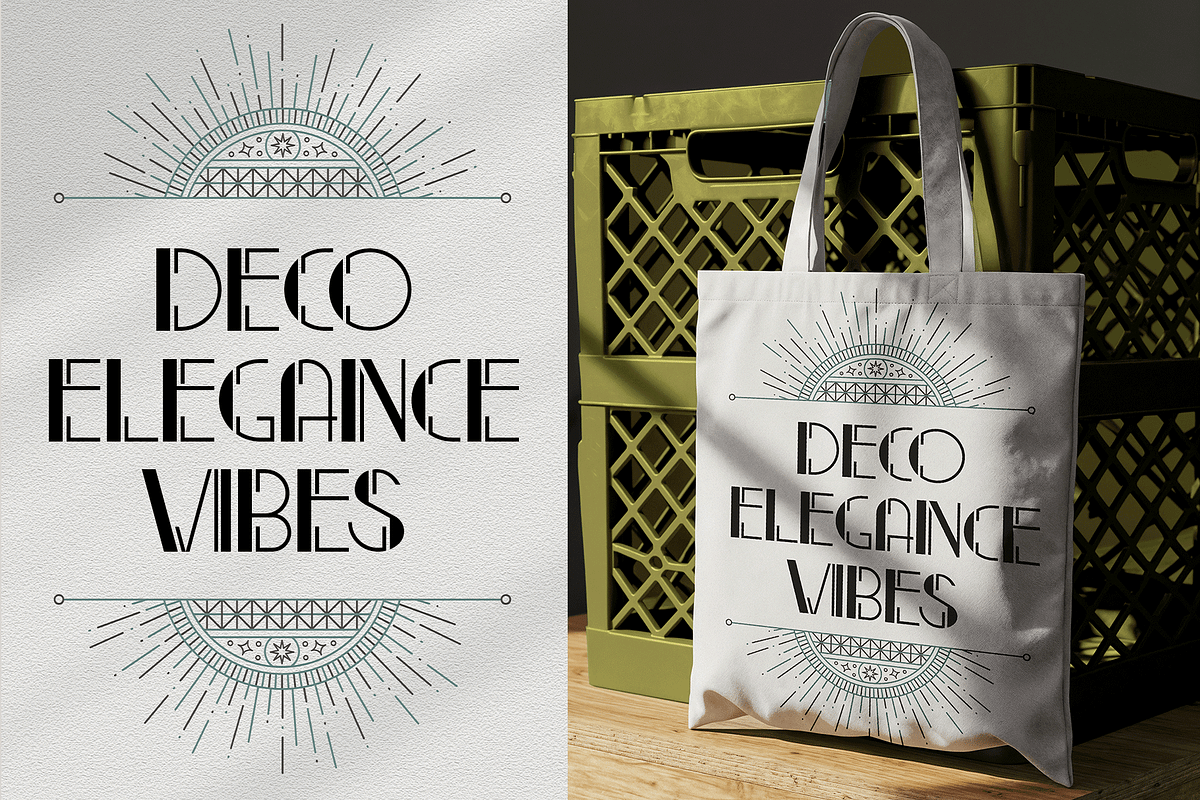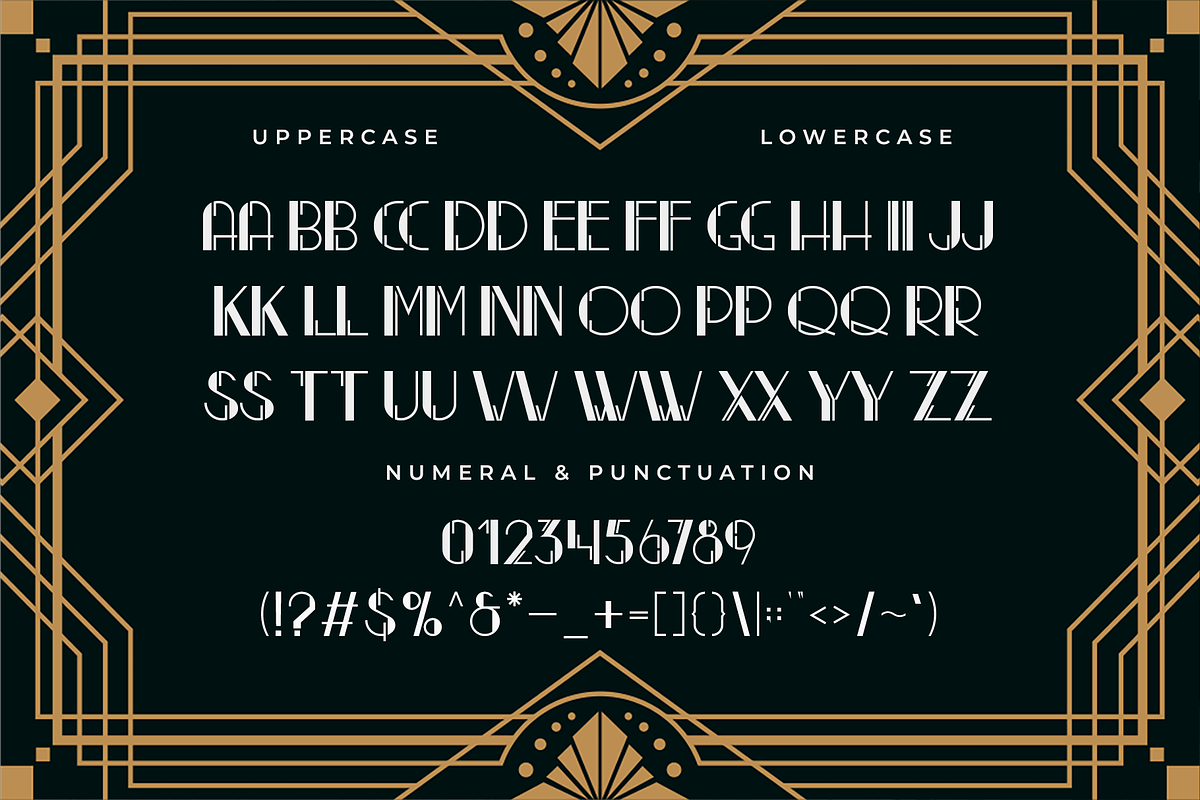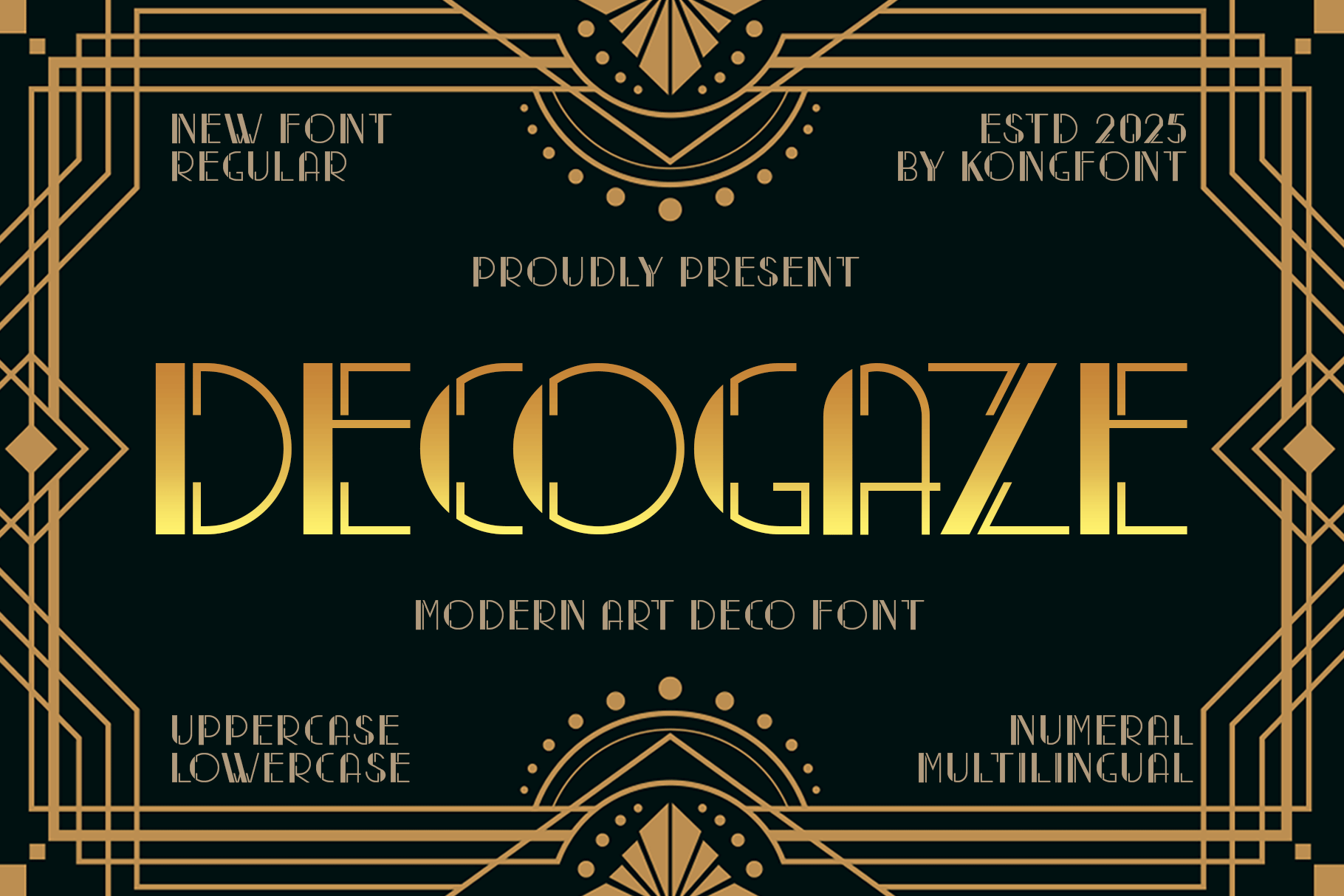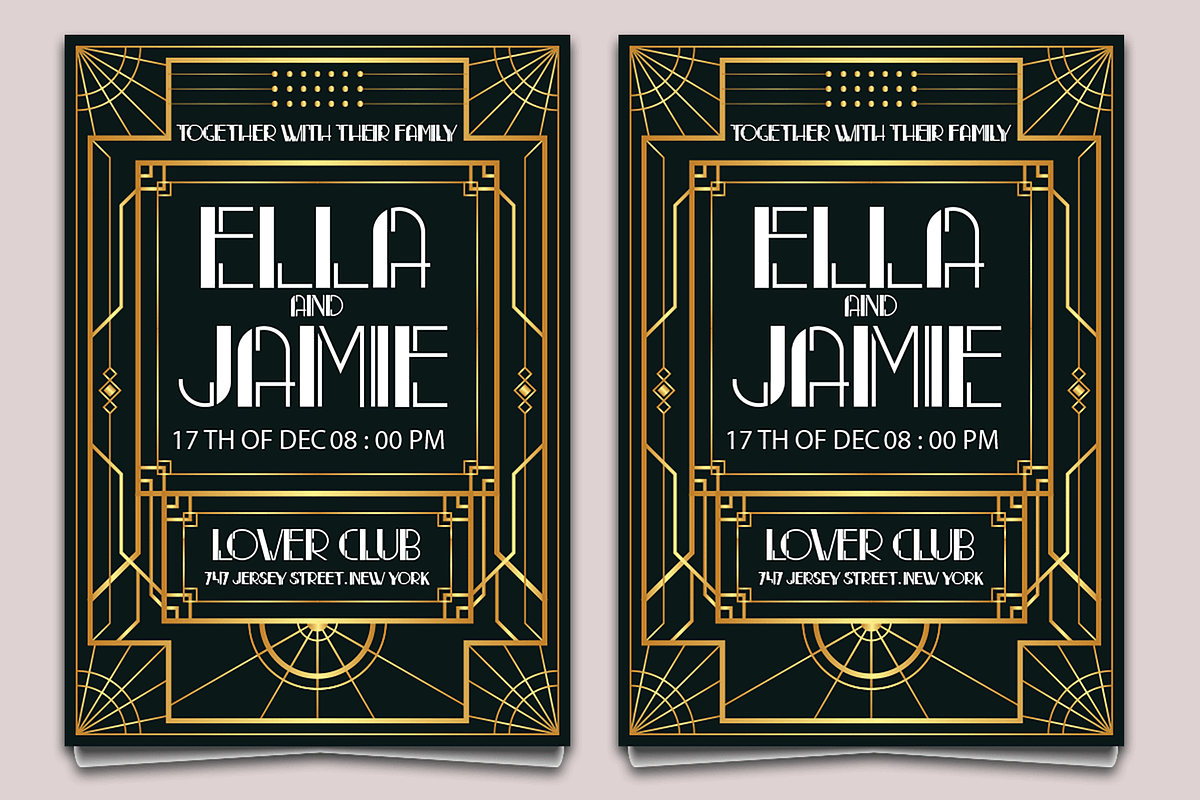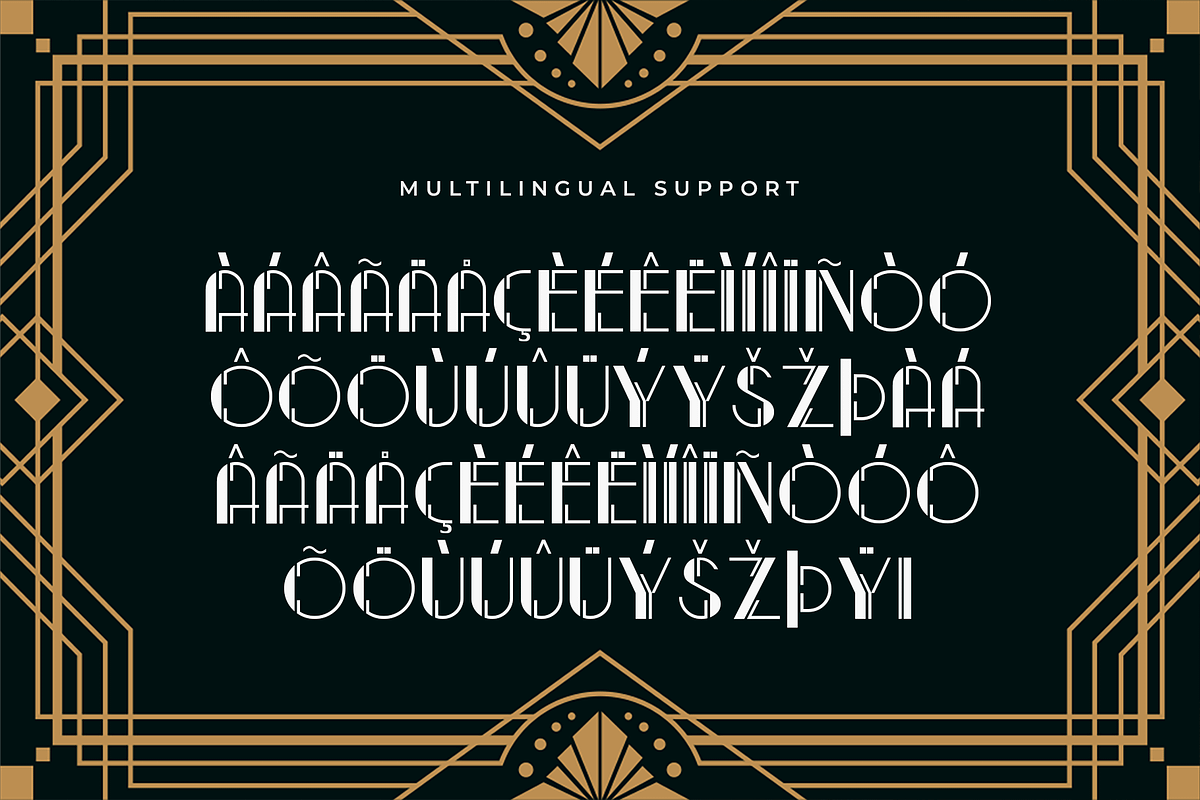
Decogaze - Modern Art Deco Font
Introducing Decogaze, a modern Art Deco font designed to capture the timeless sophistication of the golden 1920s while elevating it with a clean, contemporary finish. With its elegant lines, geometric shapes, and refined visual rhythm, Decogaze delivers a luxurious, high class aesthetic suitable for a wide range of creative projects.
This typeface blends classic Deco ornamentation with modern minimalism, making it perfect for branding, packaging, invitations, editorial layouts, signage, product labels, posters, and elegant event designs. Its distinctive character shapes instantly evoke a sense of glamor, making Decogaze an exceptional choice for fashion brands, beauty products, jewelry, boutique identities, and premium marketing materials.